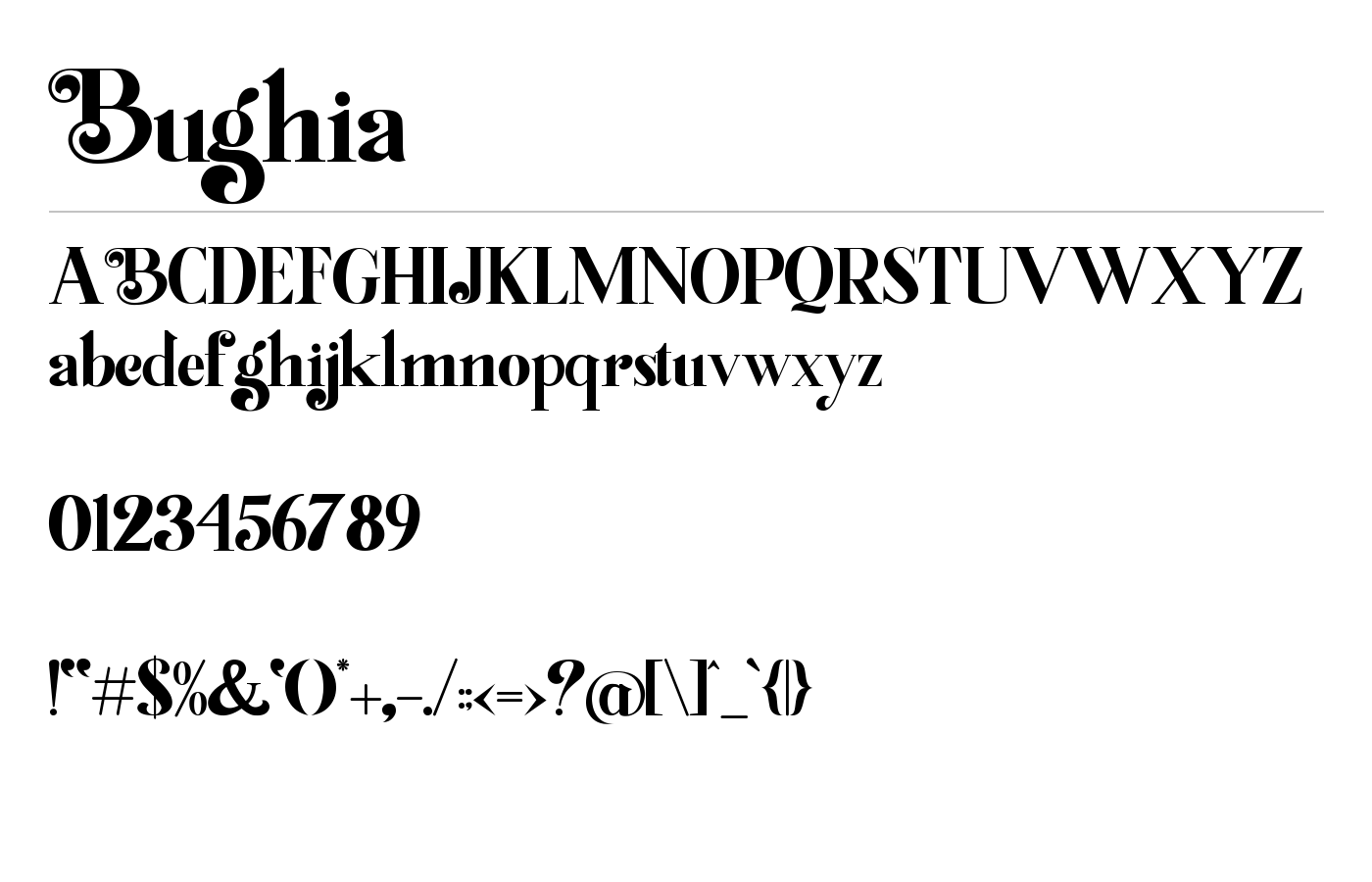
Bughia is a bold, serif typeface with a striking contrast between thick and thin strokes, featuring elegant bracketed serifs and distinctive decorative flourishes on specific letters like the uppercase B and lowercase g. Its high contrast, classic style, and unique details give it a sophisticated, vintage feel, making it ideal for luxury branding, editorial headlines, and logos that seek to convey elegance and timeless charm. This font stands out best in large sizes where its ornate characteristics can be fully appreciated.
Bughia Font
About Bughia Font